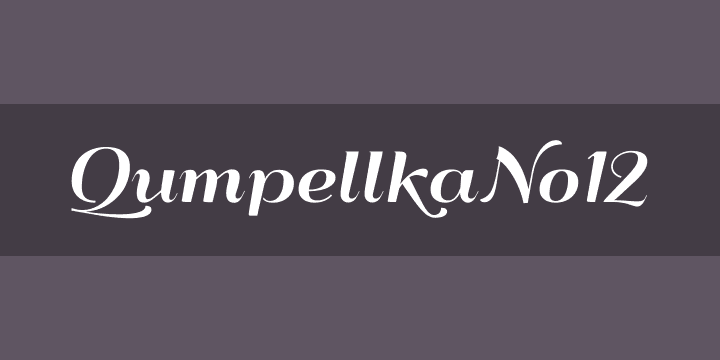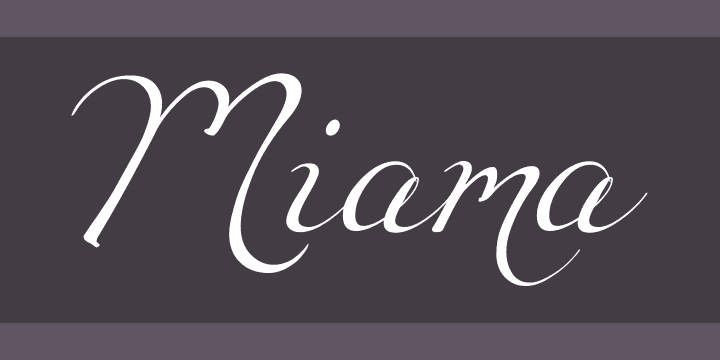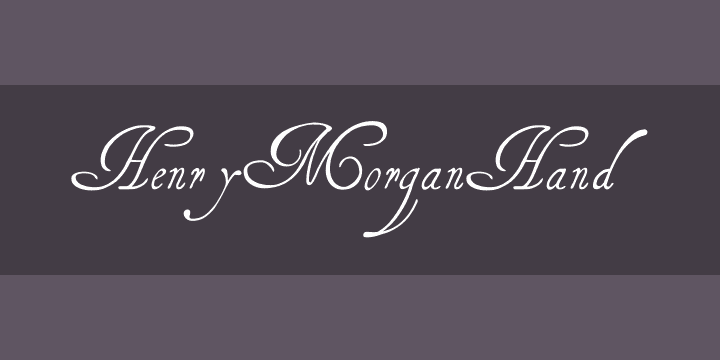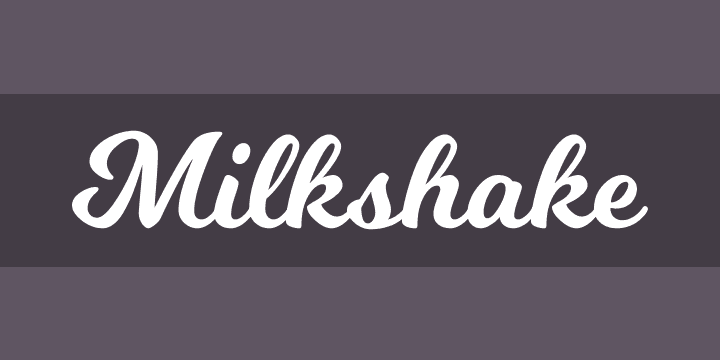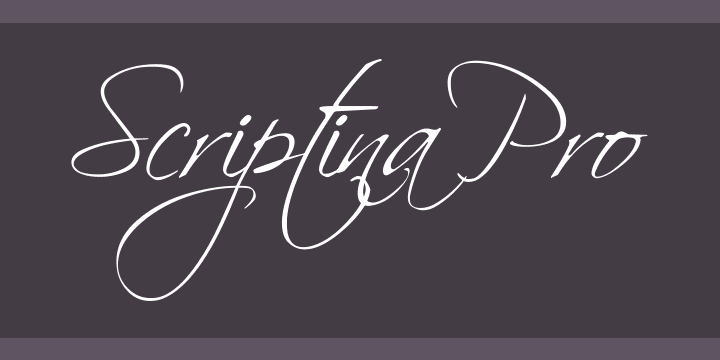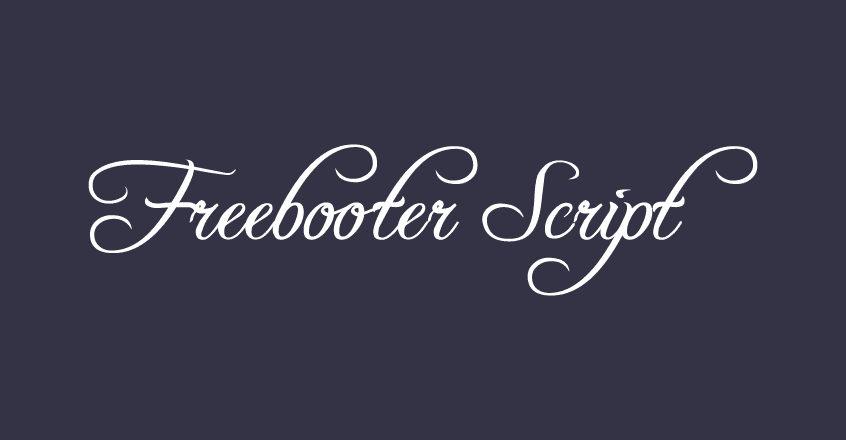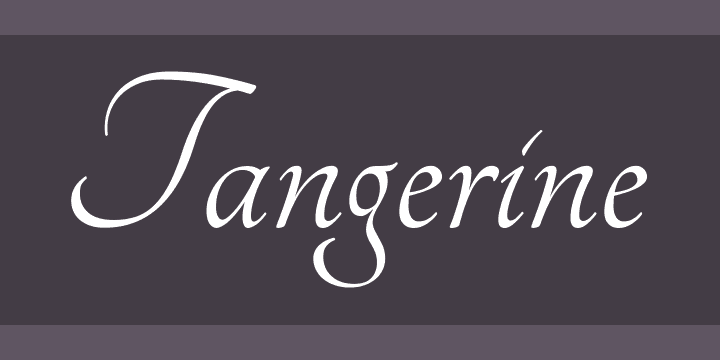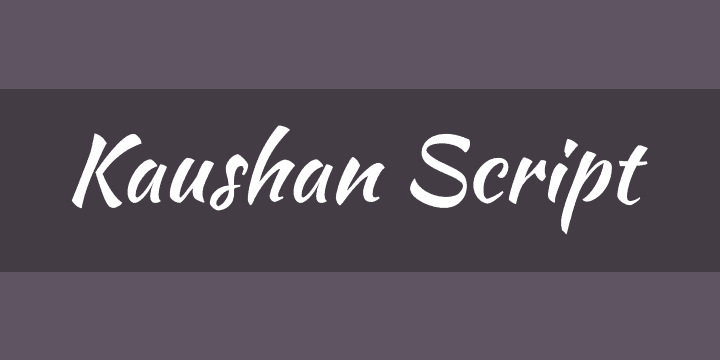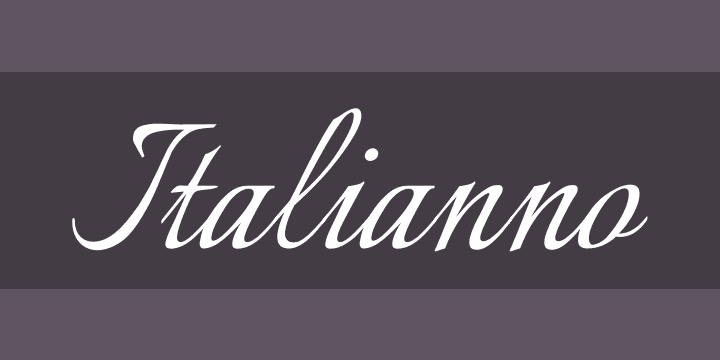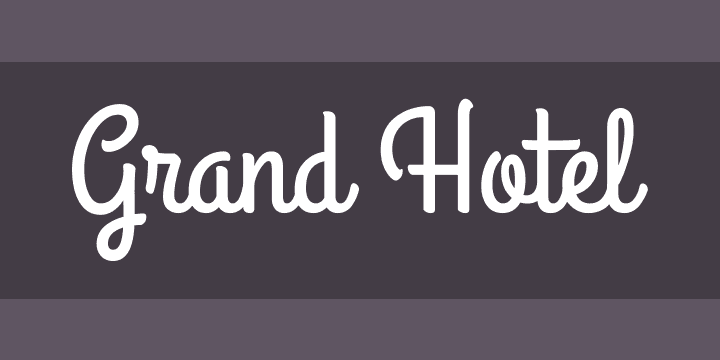
Best Script Fonts: 35 Free Script Fonts
Best script fonts
Script fonts are used mostly for invites, publicity headings, or ads. They are never used as an article text on the Internet and are instead included in their specific uses.
Glorify brings you the most popular, 35 free script fonts that look elegant and also fun.
1. Alex Brush
One of the best script fonts, Alex Brush is a TypeSETit-designed connected brush script font. It is a font for typography, which fits well for professional uses. It has more than 250 glyphs and works in a single design.
Alex Brush script font
2. Pacifico
Pacifico is a Vernon Adams connected script font. It has a vintage look because it reflects styles seen in the first half of the twentieth century all over America. It has more than 200 glyphs in one style.
Pacifico script font
3. Great Vibes
Great Vibe is a TypeSETit stylish typeface with a handwriting-style fancy script font. Every letter is crafted to artfully bind to each other regardless of the word you want to join. It comes with more than 400 glyphs in one design.
Great Vibes script font
4. Lobster
Lobster is an Impallari style popular script font. The workshop took a tremendous amount of time to specifically construct this font to link each letter seamlessly to the next one, regardless of the letter variations you write. It has more than 300 glyphs in one style.
Lobster script font
5. Allura
Allura is another trendy TypeSETit pretty script font. Whilst still stylish, this version is less careful and ‘tight’ than this designer’s two prior fonts. It comes with more than 350 glyphs in a special style.
6. Kaushan Script
Kaushan Script is a modern script font with letters of a typographic style, although the entire design is new. The font has more than 400 glyphs in a single style.
Kaushan Script script font
7. Grand Hotel
Brian J. Bonislawsky and Jim Lyles of Astigmatic are the designers of the fun script font type of the Grand Hotel. The typography was influenced by the CafeMetropole’s title screen, a 1937 film featuring Tyrone Power. It works with more than 350 glyphs in a special theme.
Grand Hotel script font
8. Windsong
Windsong is a concentrated, calligraphic popular script font designed by Bright Ideas. It is a timeless, traditional type of calligraphy. It has more than 250 glyphs in one style.
Windsong script font
9. Sofia
Sofia was created by Latinotype, easy, half-connected script typography. It is a semi-connected pretty script font, some elements of which link with each other beautifully and others do not. It works with more than 200 glyphs in a single design.
Sofia script font
10. Black Jack
A relaxed and a rather different script font with a brushed style, Black Jack was crafted by Typadelic. It is a simplistic font in one design with above 150 glyphs.
Black Jack script font
11. Lobster Two
Lobster Two is the finer, more upstanding variant of the popular script font Lobster. This is also created by Impallari Type. It is available in four standard types with more than 350 glyphs.
Lobster Two script font
12. Dancing Script OT
Dancing Script OT is an Impallari style informal script font. It was influenced by typography utilized around the 1950s. It’s a basic font with over 200 glyphs and a single theme.
Dancing Script OT script font
13. Arizonia
Arizonia is a subtly stylish script font by TypeSETit. It was influenced by the “flowing forms created by a sign painter’s camel hairbrush.” It works in a single style with over 250 glyphs.
Arizonia script font
14. Tangerine
Tangerine is designed by Toshi Omagari andis one of the most stylish, typographic and fancy script fonts. The Italic chancellor styles used in the 16th and 17th centuries influenced this font. It comes with over 200 glyphs in two basic types.
Tangerine script font
15. Freebooter Script
Freebooter Script is an attractive but exquisite Apostrophic Labs script font. It is available in a single design with over 200 glyphs, but also with a range of alternative characters.
Freebooter Script font
16. Euphoria Script
Script Euphoria is more of a casual script font. It has brushed script finishes but has begun as a basic letter type, which makes it more fun and informal than other script typography. It comes with over 200 glyphs in a single design.
Euphoria Script font
17. Rochester
Rochester is a stylish, semi-related Sideshow script font. It has been influenced by the Victorian and Art Deco calligraphical styles. It is available in a single style with over 200 glyphs.
Rochester script font
18. Miama
Miama formal, calligraphic script typeface designed by Linus Romer, as the name suggests is a formal script font. It is available in a single style with more than 400 glyphs.
3. What is script typography?
Script typesetting is built on a diverse and often flexible handwriting motion that is just as graceful as the cursive fonts. The formal types are organized into highly standard, cursive handwriting, and informal typefaces are similar.